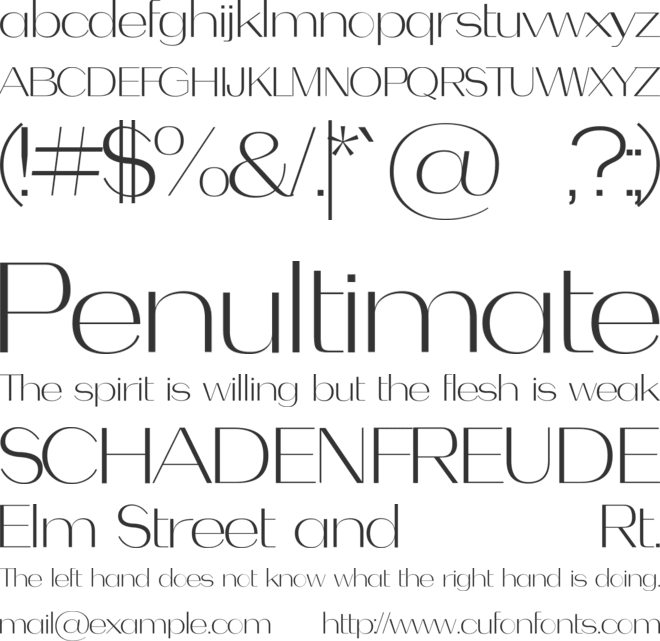
bodhi Font Family
Bodhi is a clean, delicate sans serif with minimalist elegance and multilingual support—ideal for editorial design, branding, and poetic visuals.